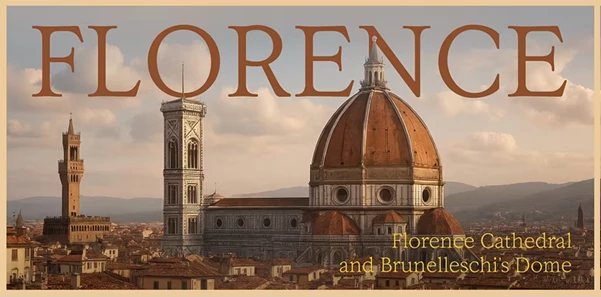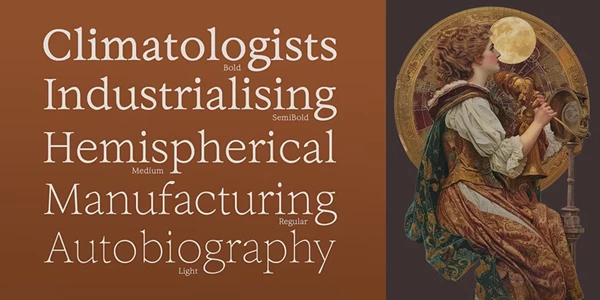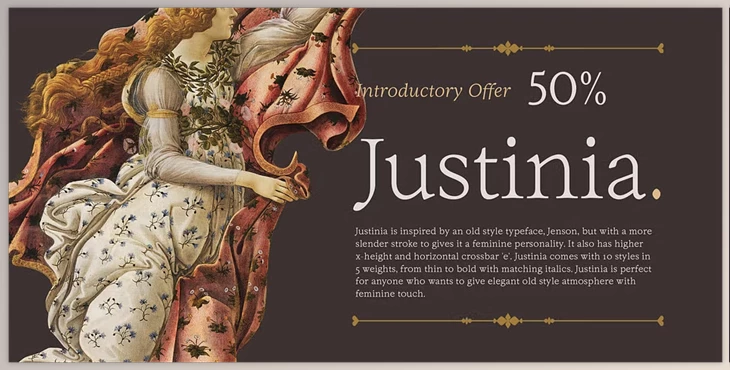
The typeface is The Justinia Font Family, which has been elegantly designed and is based on the classic Jenson style. The modern adaptation has a softer stroke and, therefore, a more feminine touch. Justinia is noticed for its beauty because case ‘e’ has a distinctive crossbar, and its x-height is bigger.
There are 10 styles, each in a separate font-weight from thin to bold, along with their respective italics, which makes this font family highly versatile. Such a range of styles allows designers and creatives to achieve a wide variety of looks while still harmonizing together. This font family is best suited for any type of design that combines contemporary sophistication and timeless elegance. From print to digital media, Justinia ensures that any creative work is visually stunning.